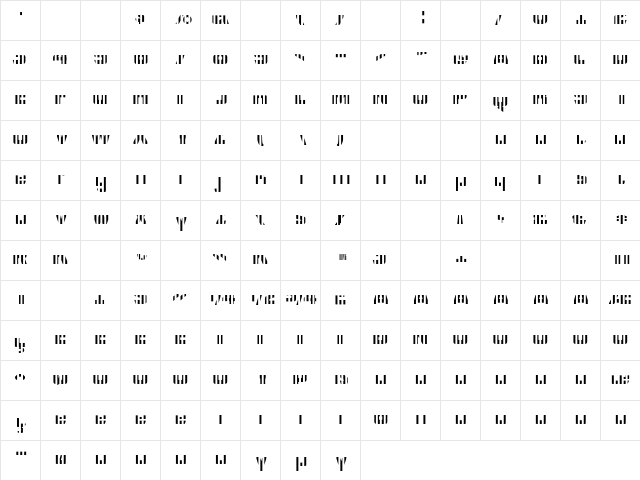
CFB1 American Patriot SPANGLE 2 Bold Italic Free Font
CFB1 American Patriot SPANGLE 2 Bold Italic
Foundry: The Fontry
Design Context for CFB1 American Patriot SPANGLE 2
CFB1 American Patriot SPANGLE 2 is a composed and adaptable typeface that performs quietly and consistently across a wide range of design contexts. The slanted form adds forward momentum and visual energy. Its bold stroke weight gives it real presence on the page.